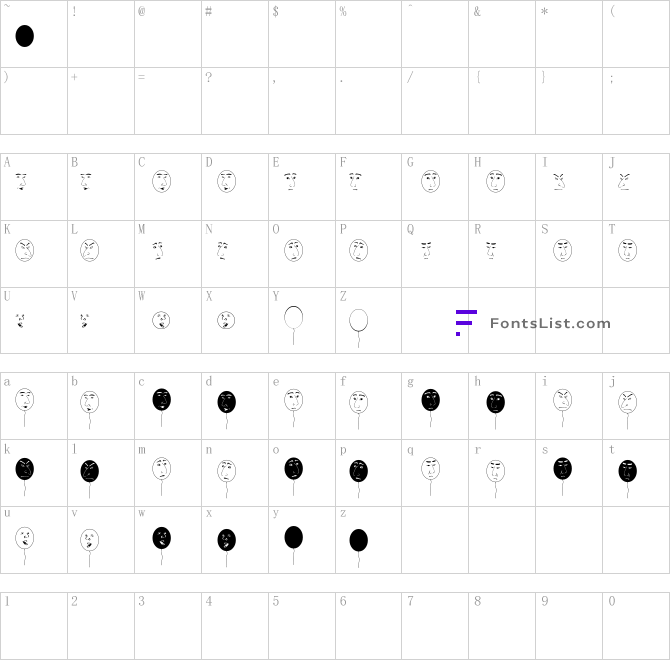
- Font Name:balloon man
balloon-man.ttf is a very beautiful artistic font, balloon-man.ttf is widely used in the design and printing of various books and pictures,balloon-man.ttf has a strong visual impact,balloon-man.ttf is a commonly used font in newspapers, magazines and books, and is used in posters, e-commerce Poster design, store design, logo design, font design and other fields.balloon-man.